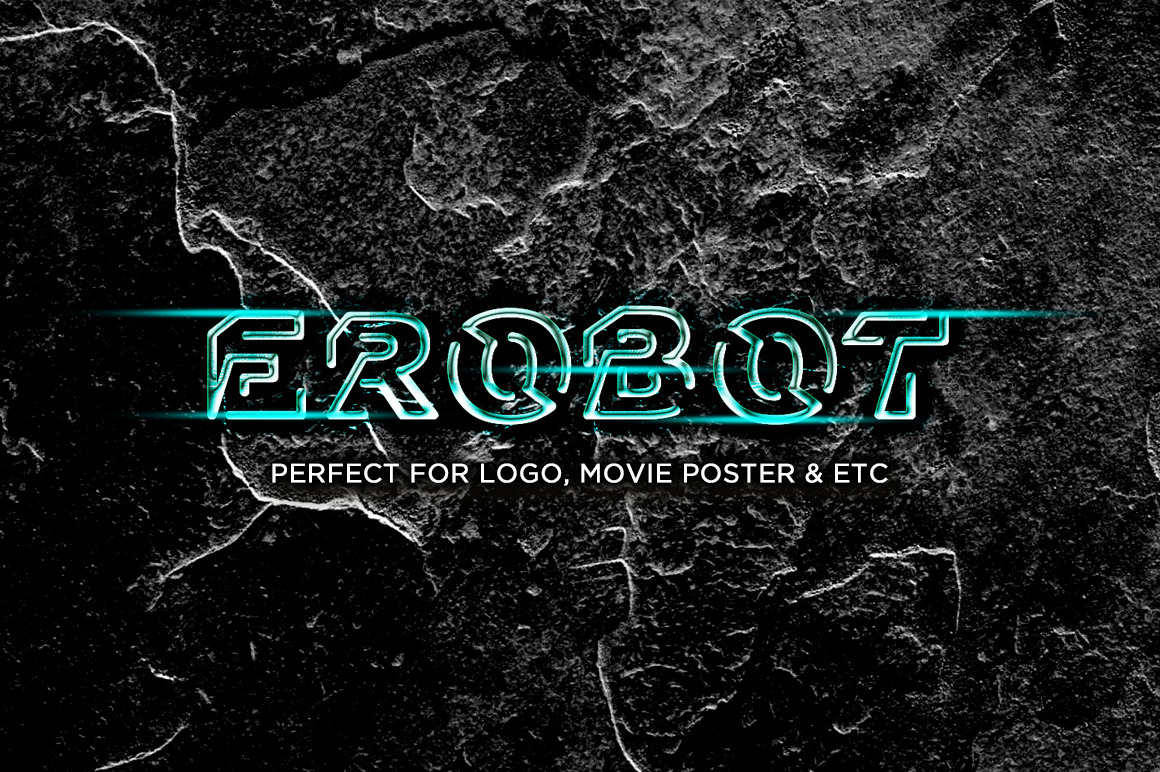
EROBOT Typeface
EROBOT Typeface | Sci-Fi font
Introducing Erobot Typeface - A minimalist and geometric character! With different style, it's perfect for logos, headers, movie poster, movie title, brand identity or even large-scale artwork.